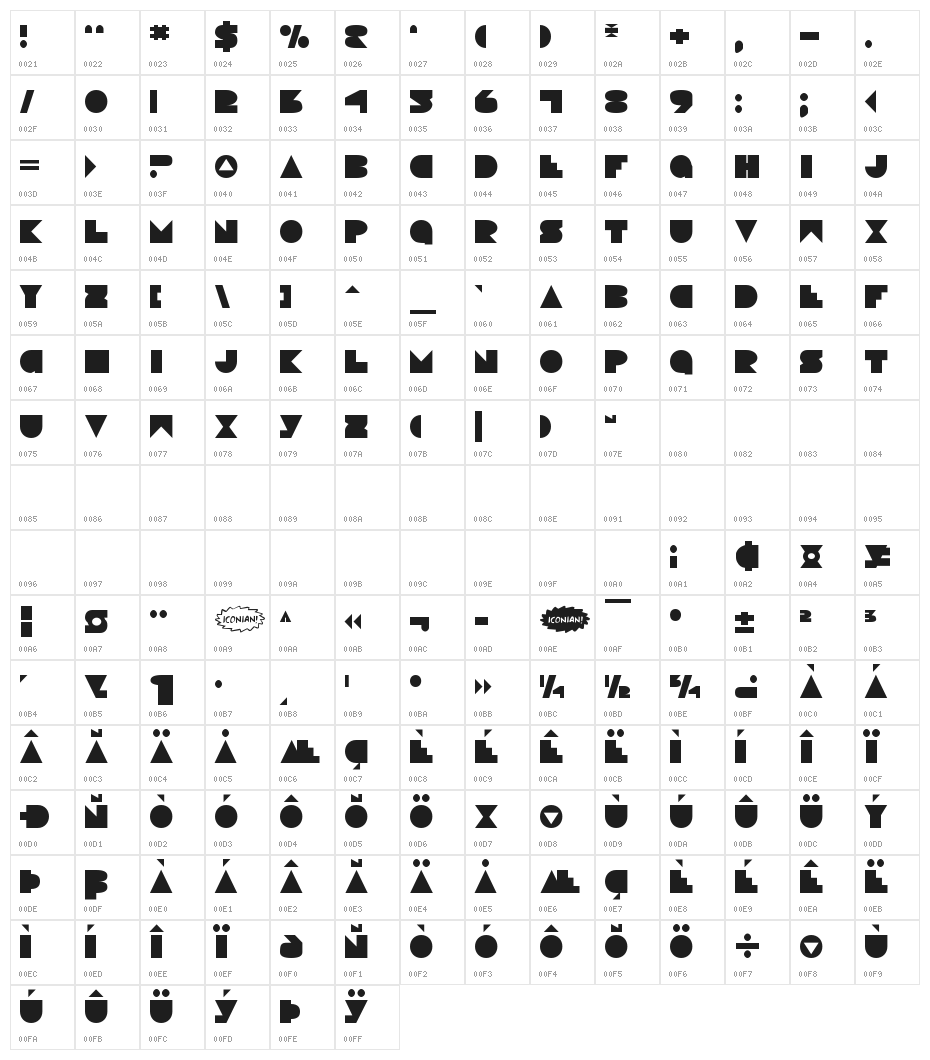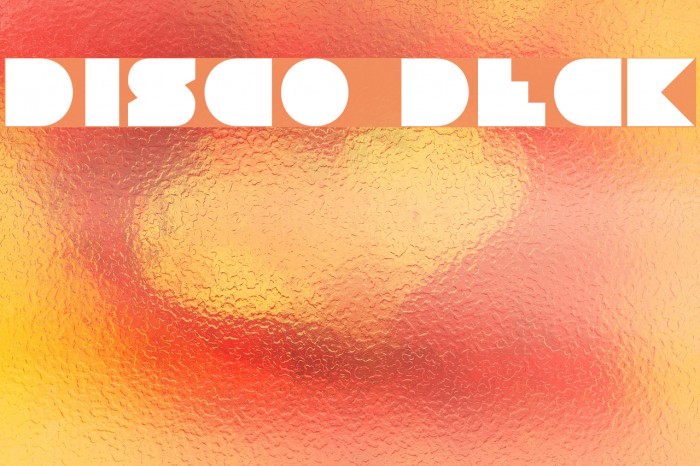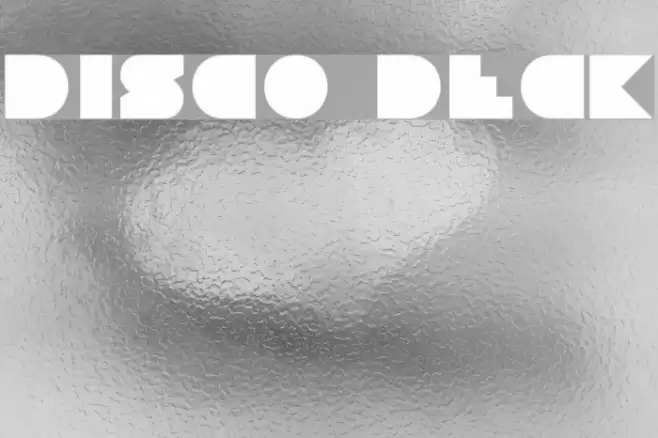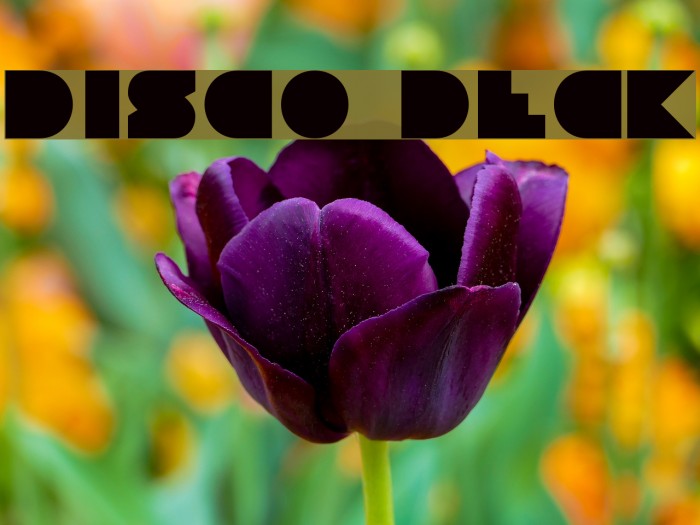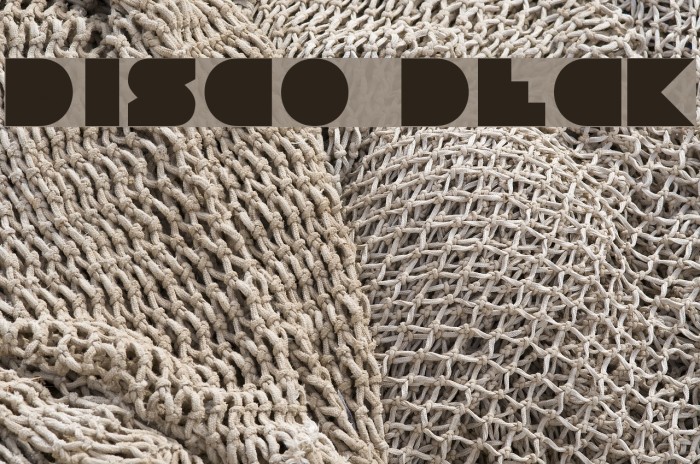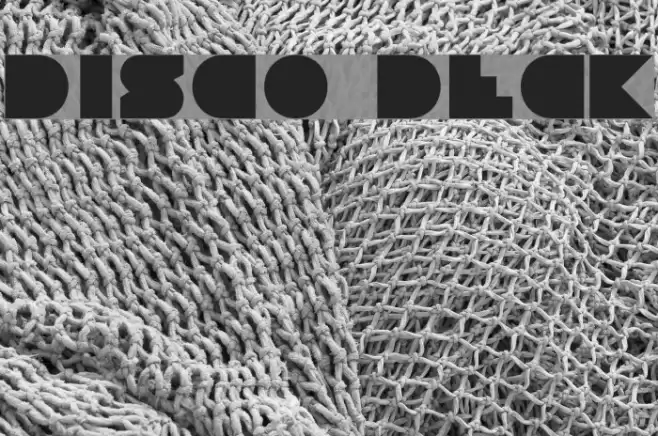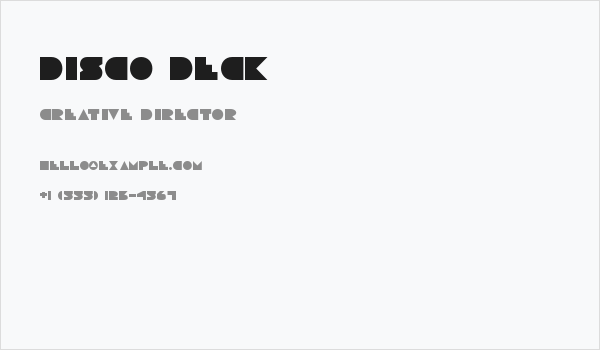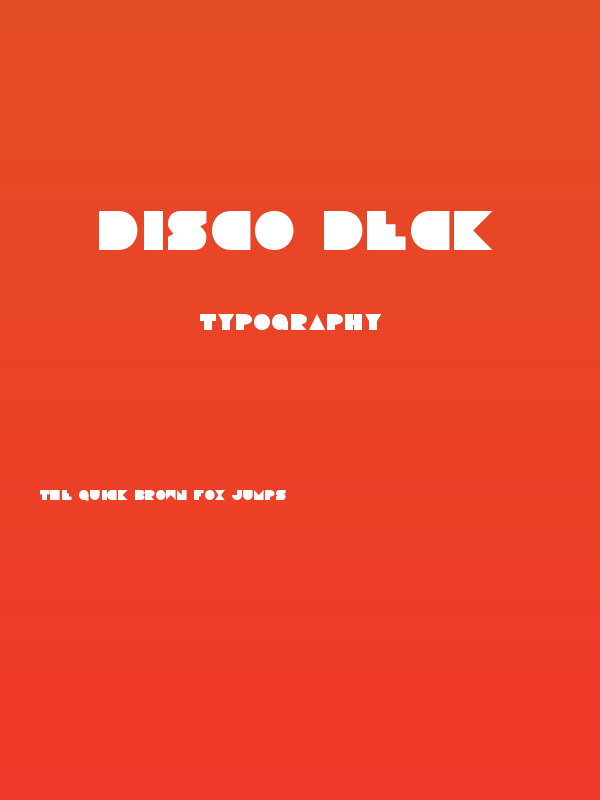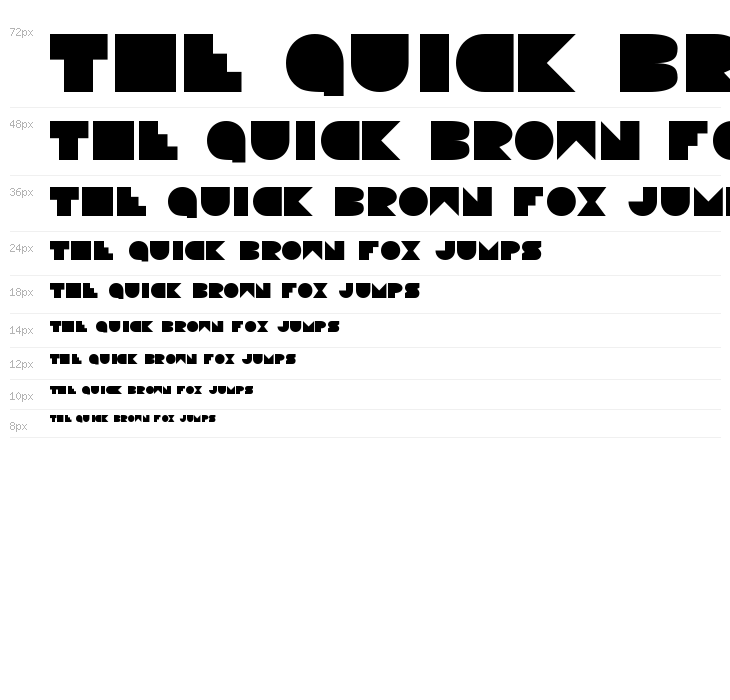
Disco Deck Font
Disco Deck Description
This font features bold, geometric shapes with a distinct retro flair, reminiscent of the disco era. The characters are constructed with solid, block-like forms, creating a sense of rhythm and movement. The uppercase and lowercase letters share a consistent style, emphasizing symmetry and uniformity. The numbers and special characters maintain this bold aesthetic, making them stand out prominently. The overall design is playful yet structured, ideal for capturing attention.